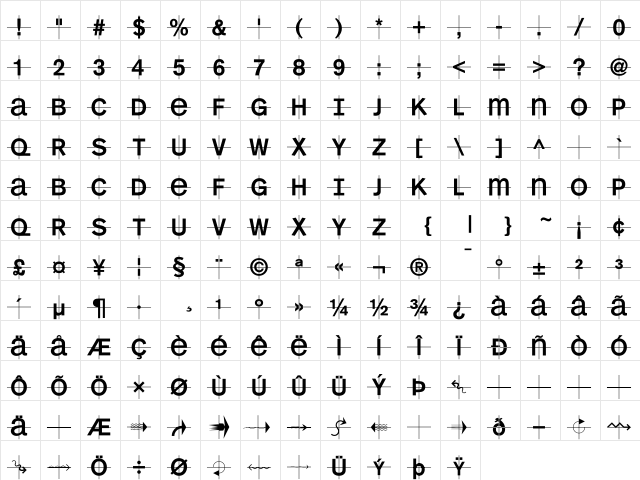
KL1MonoCase Regular
Design Context for KL1MonoCase Typeface
KL1MonoCase brings the precise, column-aligned rhythm of monospaced typography to designs that value technical clarity and systematic order.
Well-suited to data-driven dashboards, coding tutorials, and any design that wants to reference the world of programming.